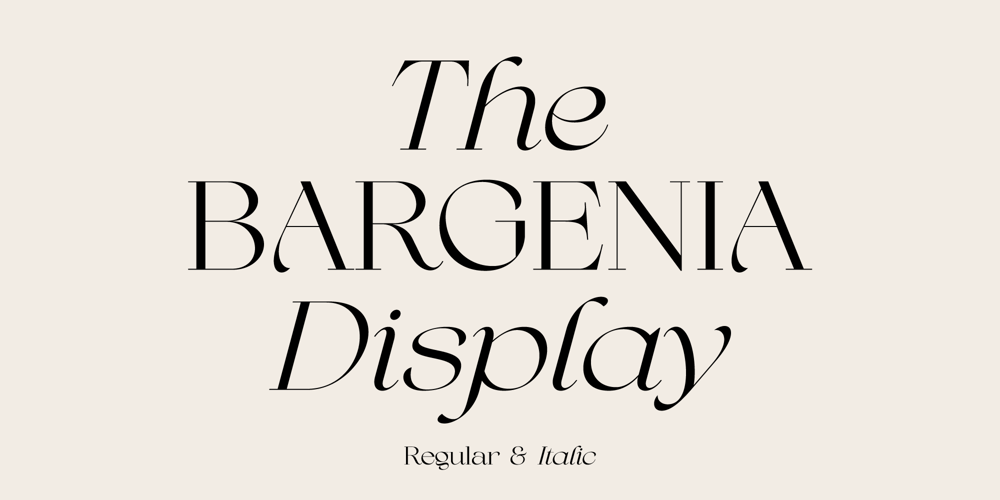
Bargenia Font Family was designed by Annas Alam Yahya and published by Letteralle. Bargenia contains 2 styles and family package options. Introducing, Valery! a serif display font with a modern yet luxurious style. Aesthetic and unique letterforms, as well as soft curves are the hallmark of this font.Valery is a versatile and multigender font. Perfect for editorial projects, Logo design, Wedding, Clothing Branding, product packaging, magazine headers, or simply as a stylish text overlay to any background image.I hope you enjoy!Letteralle Studios